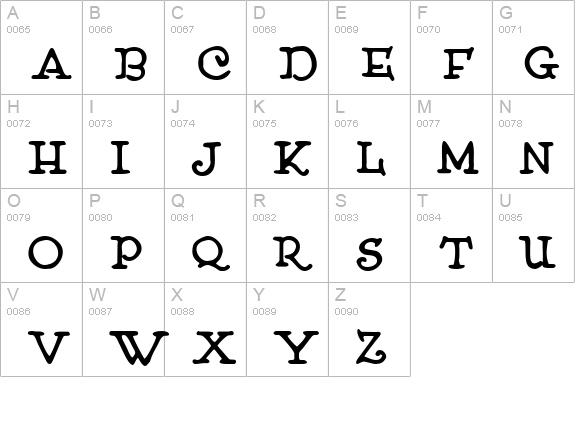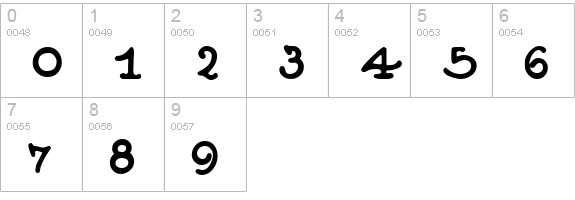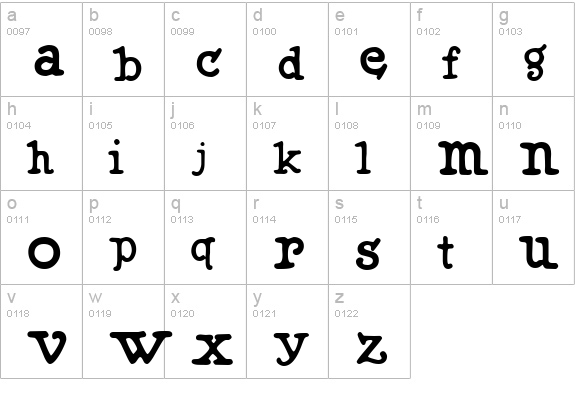
Muffy Font Details
Muffy font is a charming and versatile typeface that exudes a sense of playfulness and creativity. With its smooth lines and rounded edges, Muffy font is perfect for adding a touch of whimsy to any design project. Whether you're working on a greeting card, logo, or website, this font will surely stand out and make a statement. What's even better is that Muffy font is completely free to download at FontsMarket.com. Yes, you read that right - you can get your hands on this delightful font without spending a penny. So why wait? Add Muffy font to your collection today and let your creativity soar!